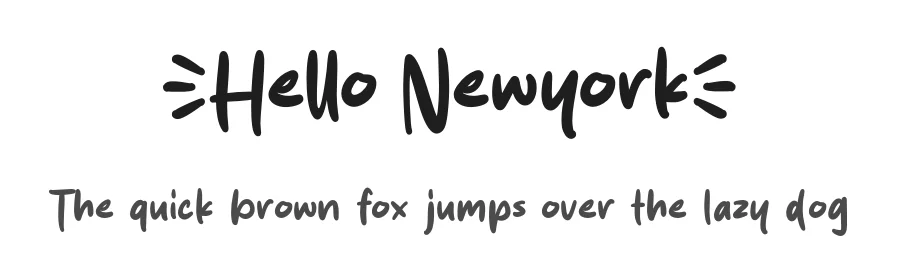
About Diary Book Font
Diary Book supports 217 languages.
Diary Book Font is a script font that shines as a display or heading face. Pair it with a clean sans-serif or serif font for body text β the contrast creates a clear hierarchy while the two styles stay balanced and easy to read.